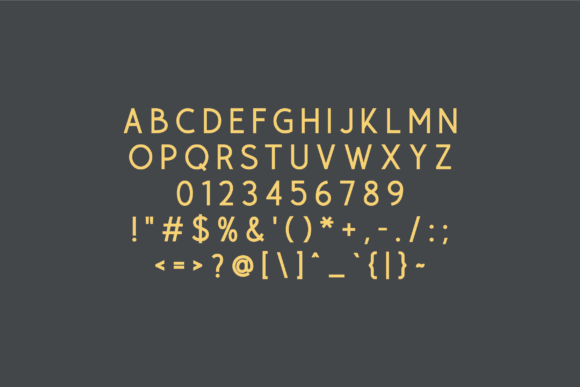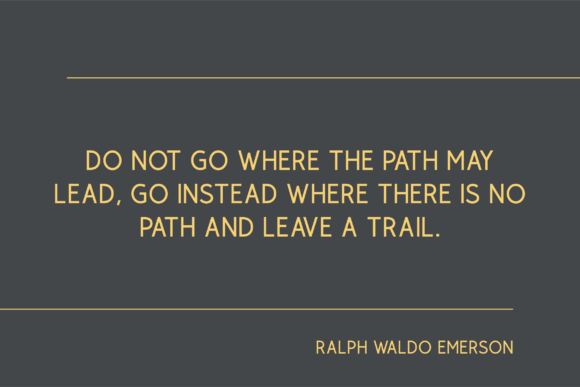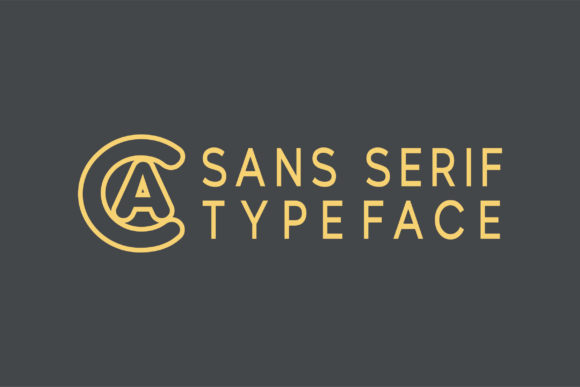
Introduction to Fluffernix Font
Introducing Fluffernix, a modern, classy sans serif typeface.
A sans serif typeface that contains upper characters, number 0-9 and a range of punctuation and symbols An extremely versatile font, perfect for logos, weddings, invitations, quotes, advertisements, print, magazines, and more.